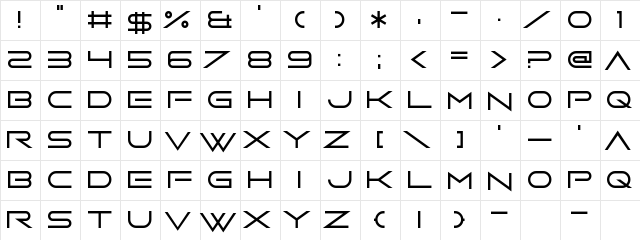
Bottom Brazil Regular
| Designer | NAL |
Design Context for Bottom Brazil Typeface
Bottom Brazil takes a measured approach to typography — its balanced proportions and neutral character make it a reliable workhorse for both digital and print work.